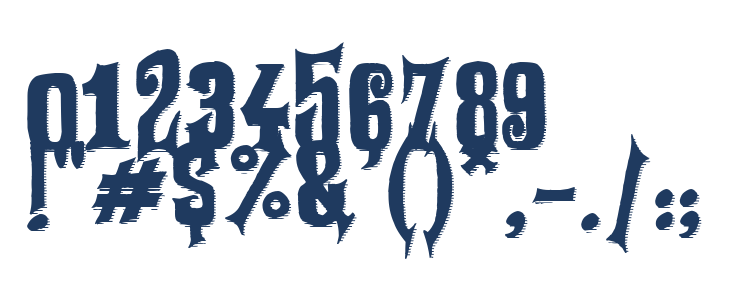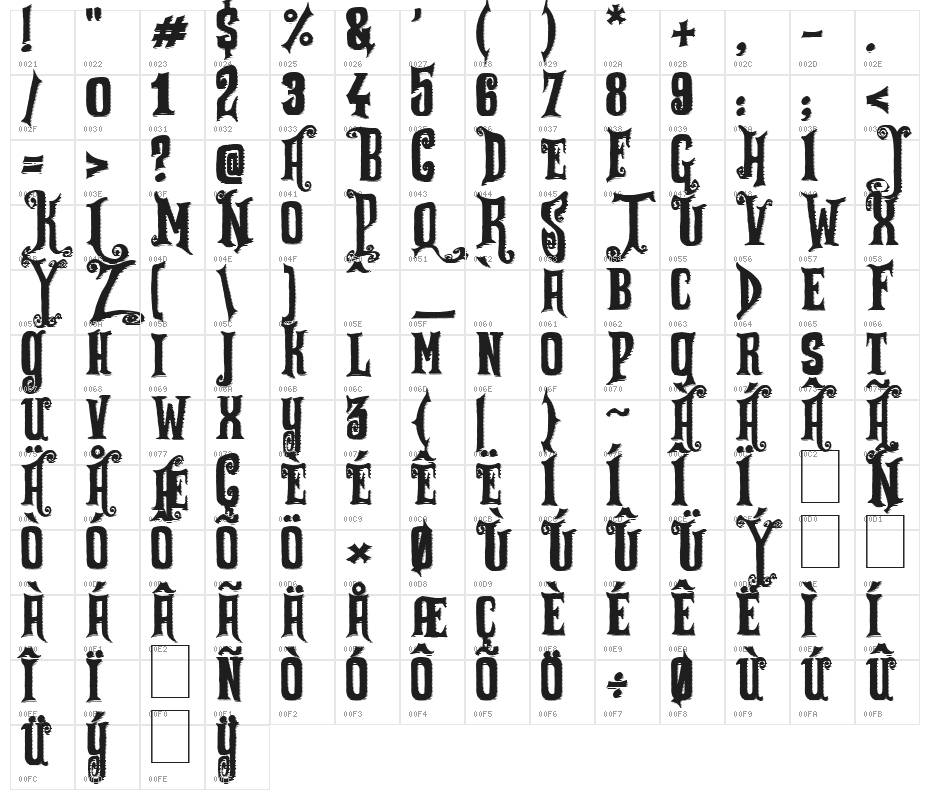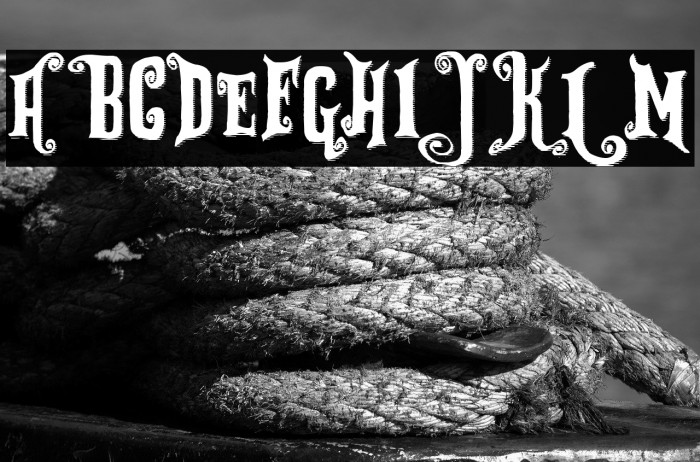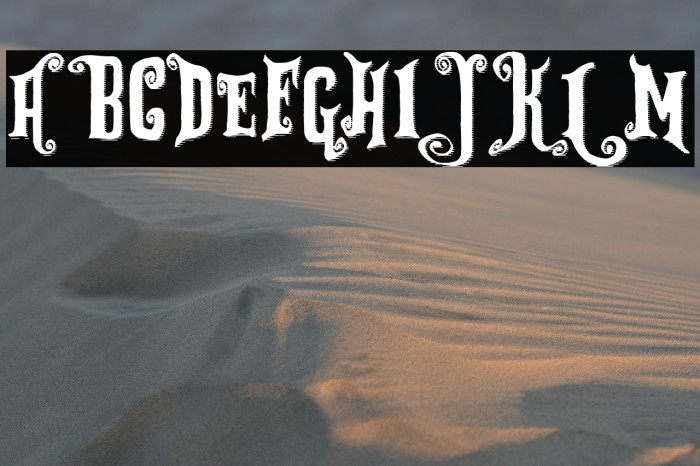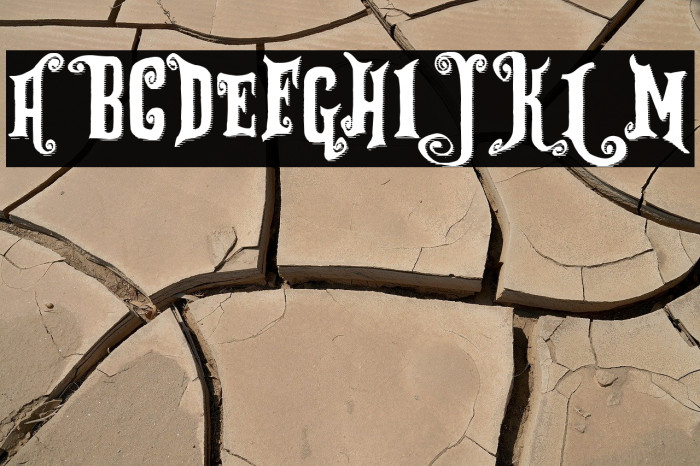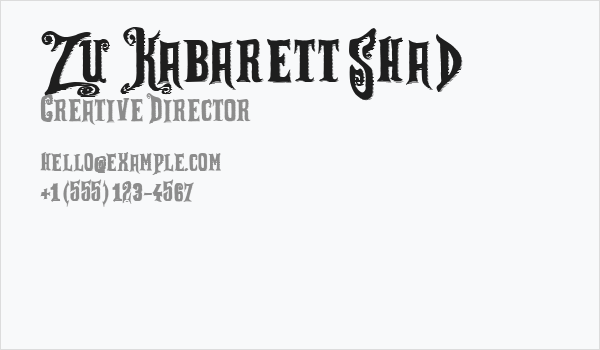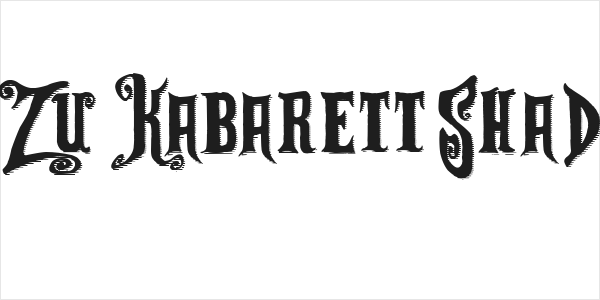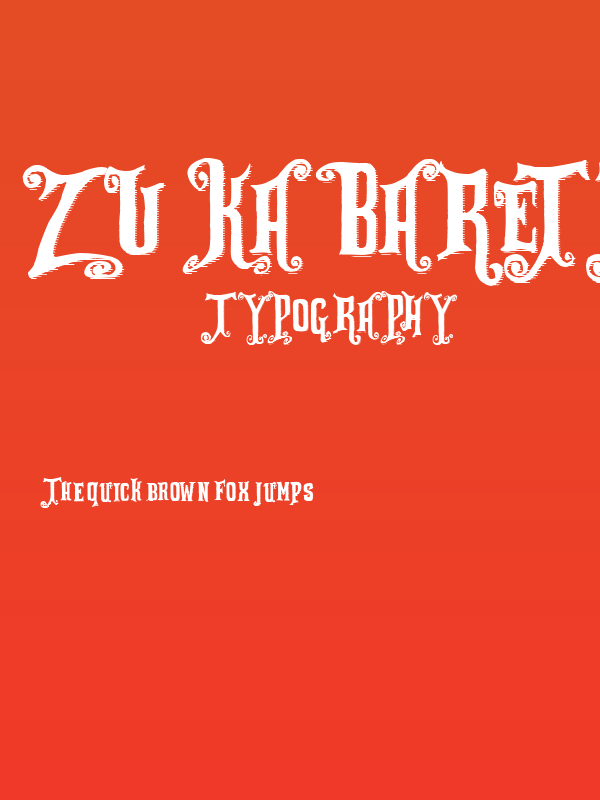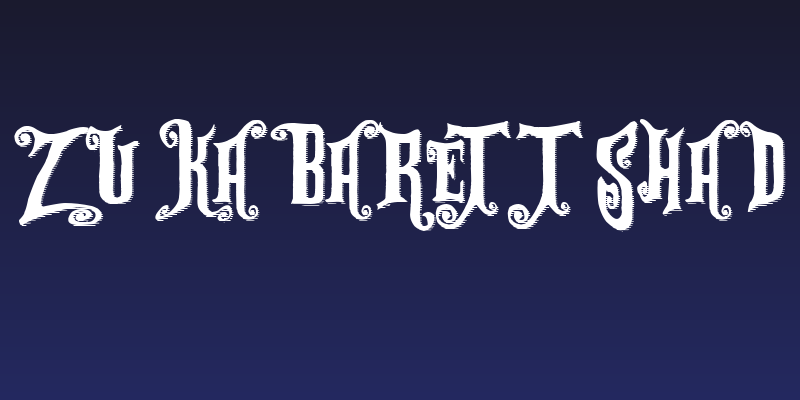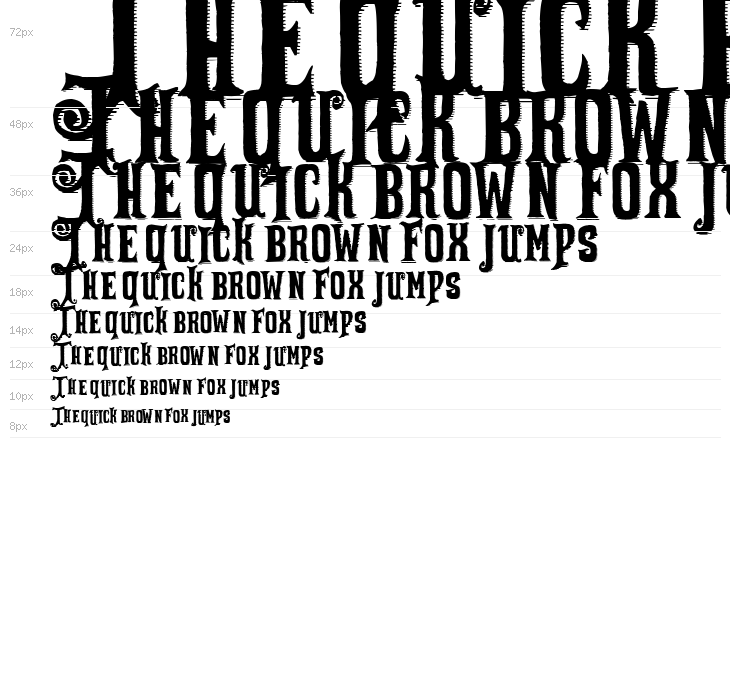
Zu Kabarett Shad Font
Zu Kabarett Shad Description
This font is a bold and decorative typeface with a vintage flair, characterized by its ornate and intricate design elements. The uppercase letters feature unique embellishments, such as curls and swirls, giving them a whimsical and theatrical appearance. The lowercase letters maintain a consistent style, complementing the uppercase with similar decorative touches. Numbers and special characters are equally stylized, ensuring a cohesive look across all glyphs. The font's bold weight and high contrast between thick and thin strokes make it stand out, ideal for capturing attention in various design contexts.
Overall StyleVintage, Decorative
Proposed ProjectsIdeal for theatrical posters, vintage-themed branding, book covers, and artistic projects requiring a dramatic flair.